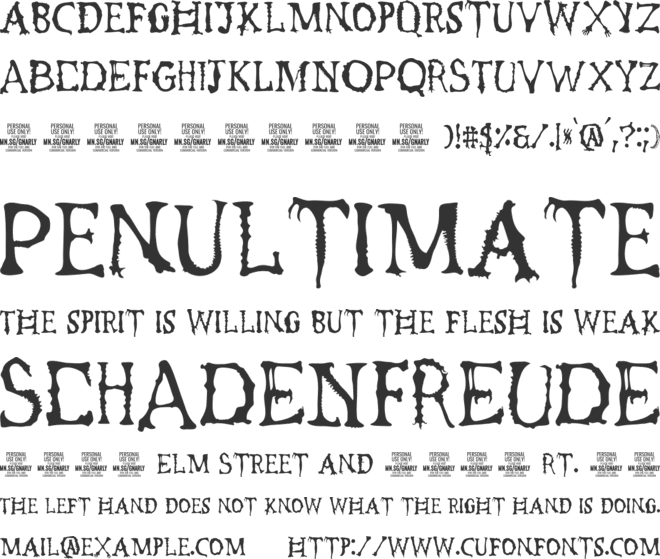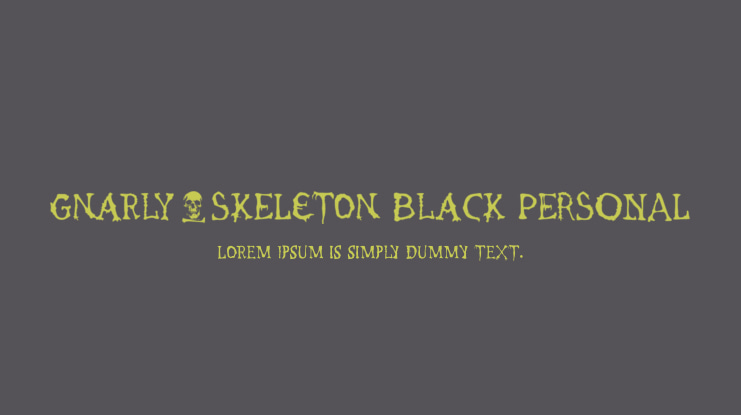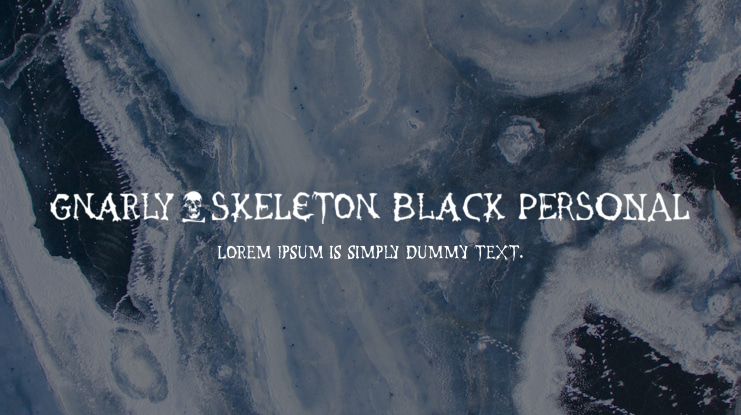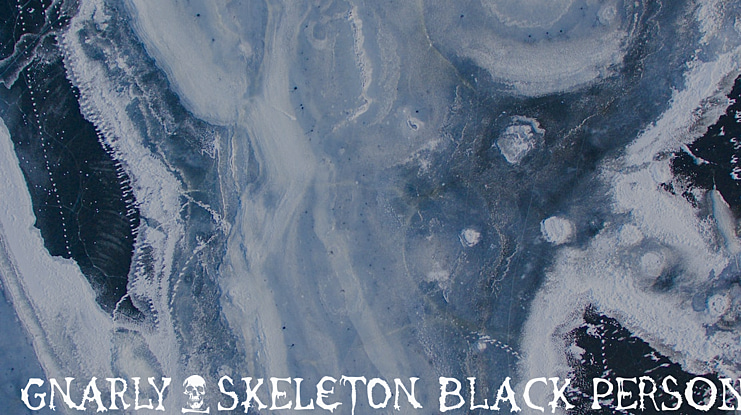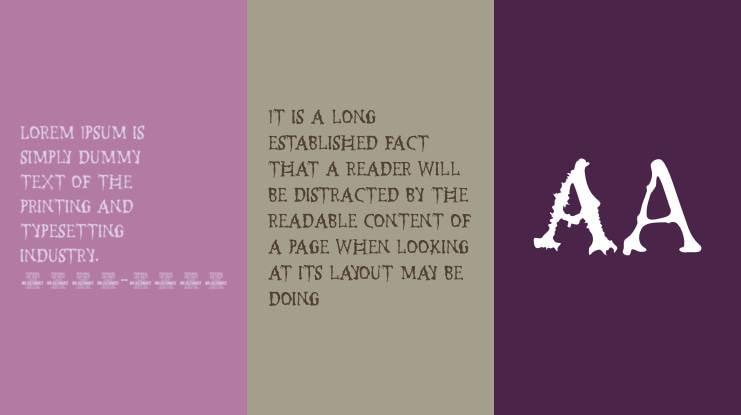
Gnarly Skeleton Black PERSONAL Font Family
Gnarly Skeleton offers a chilling and captivating display in the field of typeface design.
Featuring intricately interlocking skeletal fragments, it exudes an eerie atmosphere akin to a gripping midnight thriller.
To create a skull, use the currency symbol ¤.
For example: haLl¤weEn
You can use multiple symbols to create different skulls.
For example: ¤¤¤¤¤Darkness¤¤¤¤